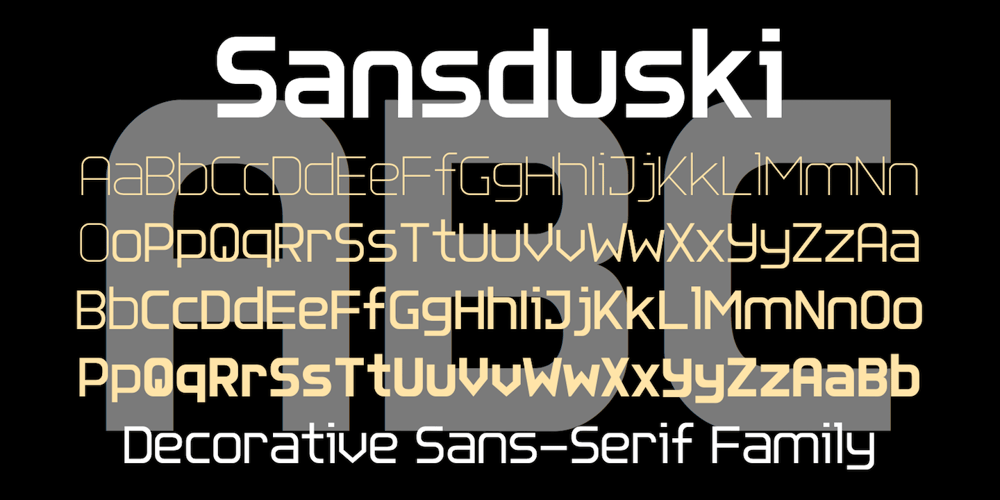
Sansduski Font Family was designed by Robert Schenk and published by Ingrimayne Type. Sansduski contains 20 styles and family package options. Sansduski is a sans-serif decorative/display family. Its very high x-height and tight spacing make it more suitable for use at large point sizes than small point sizes. (There are better options if one wants a readable text font.) It comes in nine weights and one outline style, with an oblique style accompanying each of these ten styles to give a total of 20 styles in the family.The letter O is a rectangle with rounded corners and this shape motif is carried over to other characters that are usually rounded. For a monospaced rather than proportional version of this design idea, see SansduskiMono.Sansduski is appropriate for titles, posters, advertising, and other uses that benefit from simple letter forms that are geometric and clean.